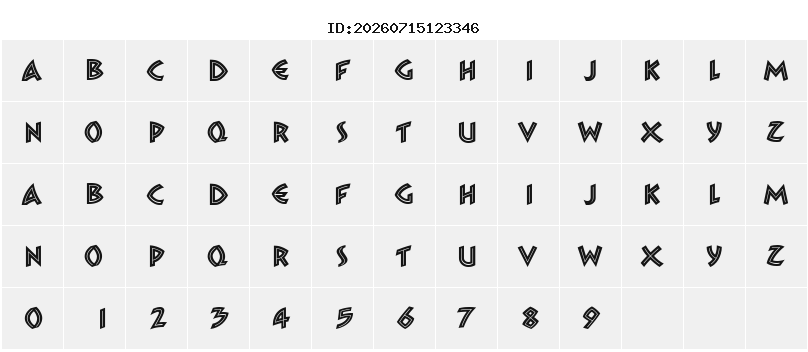
• Font Name: Zambesi MN
• Full Font Name: Zambesi MN
About Zambesi MN.ttf
Zambesi MN.ttf is a modern, elegant sans-serif font designed for ultimate readability and visual harmony. Perfect for branding, headlines, web design, and print materials.